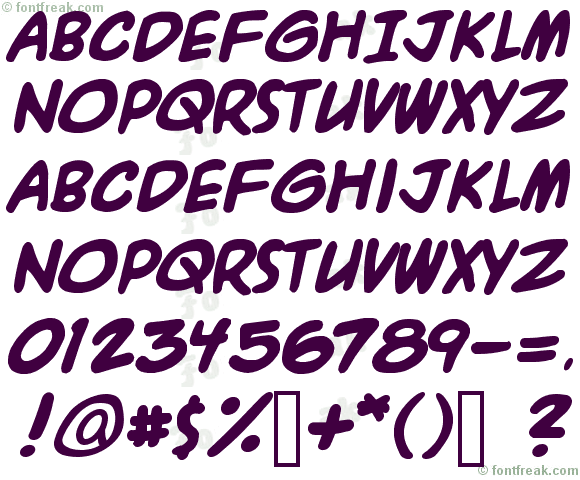
A.C.M.E. Explosive
A.C.M.E. Explosive Bold
About A.C.M.E Explosive
The A.C.M.E Explosive font, designed by Blambot Fonts, is a striking display typeface that captures attention with its bold, dynamic style. This font is characterized by its thick stroke weight and playful, rounded edges, creating a sense of energy and excitement. The design features a low contrast between the thick and thin parts of the letters, contributing to its legibility while still maintaining a fun aesthetic. The spacing is generous, allowing each letter to breathe, which is crucial for readability in various formats.
A.C.M.E Explosive font is ideal for a variety of creative projects. It shines brightly in contexts such as comic book titles, vibrant movie posters, and eye-catching event flyers. Its unique style makes it perfect for promoting children's events or products, as it evokes a sense of fun and whimsy. Additionally, small business owners looking to create a memorable brand identity can utilize this font in their logos and advertising materials to stand out from the competition.
What makes A.C.M.E Explosive truly stand out is its ability to convey a sense of motion and excitement, making it a perfect choice for projects that require a playful yet bold statement. Its freeware license also ensures that creatives of all levels can access and utilize this unique typeface without restrictions, encouraging innovative and imaginative design.